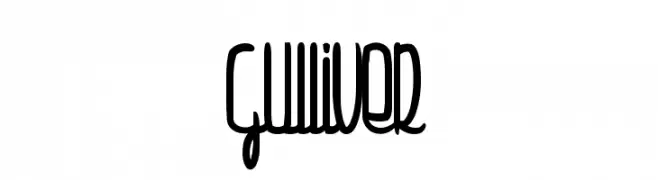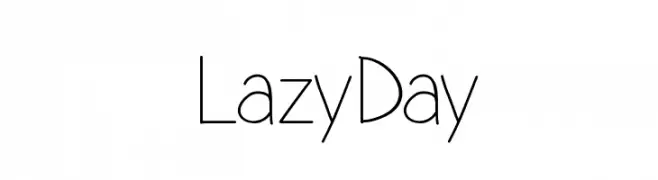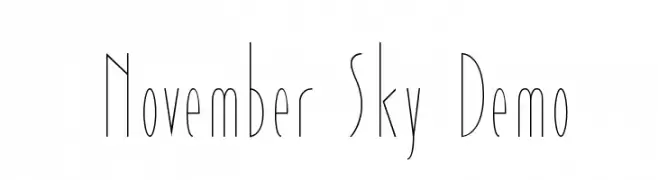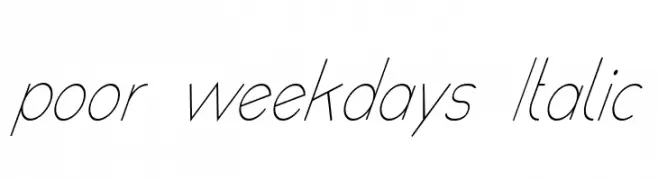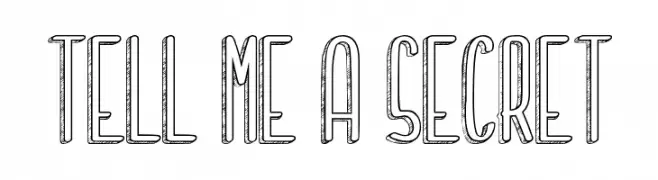
A playful, thin, and whimsical font with elongated strokes and a casual style.
A modern, ultra-thin, and elongated font with a sleek and elegant style.
A sleek, italic font with thin, elongated characters and a modern style.
A whimsical, elongated font with a hand-drawn, monoline style.
A decorative font with elongated, interconnected letterforms and bold strokes.